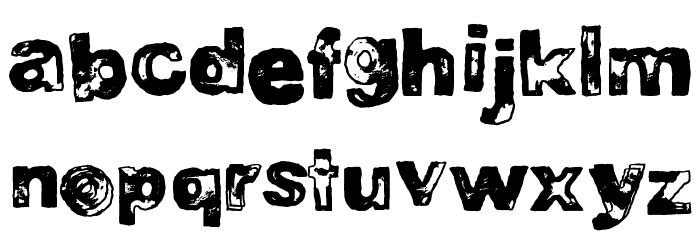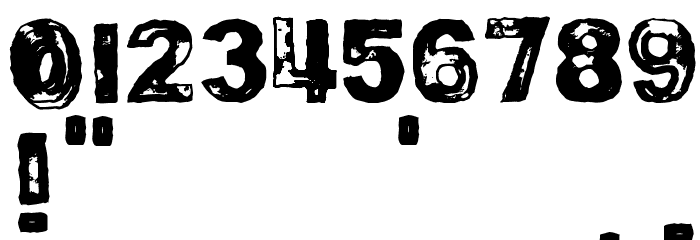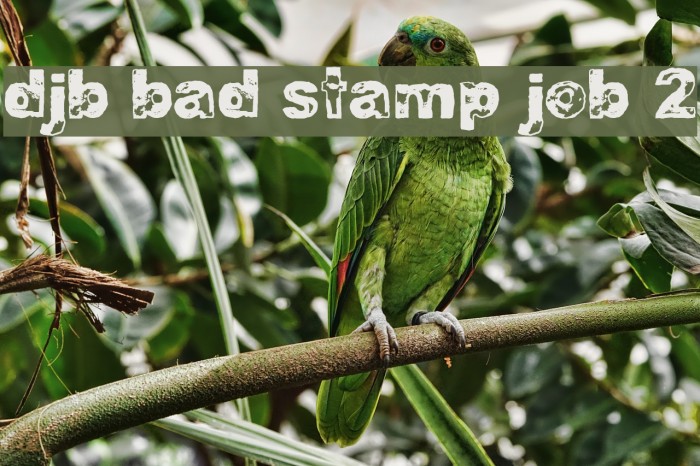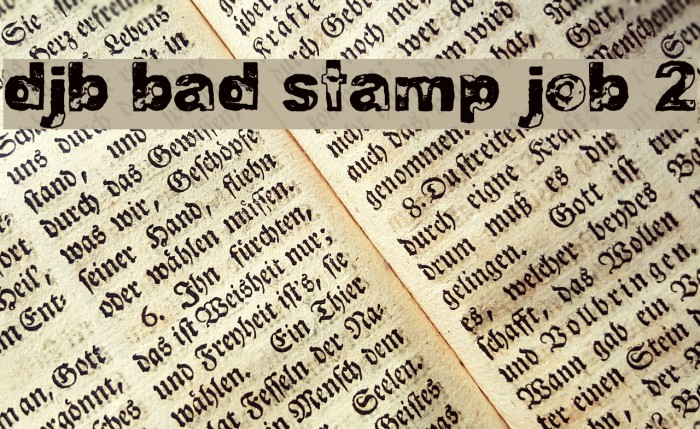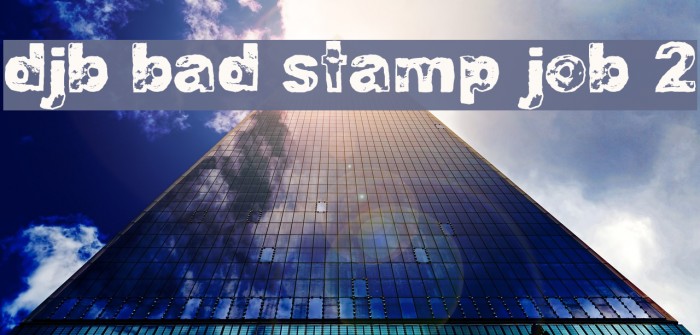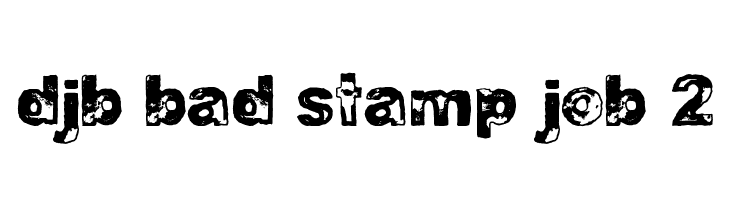
DJB BAD STAMP JOB 2 Font
This font features a distressed, grunge style that mimics the appearance of a stamp with uneven ink distribution. The characters are bold and have a rough texture, giving them a rugged and handmade feel. The edges are irregular, contributing to the overall chaotic and artistic vibe. This font is perfect for projects that require a raw, edgy look, such as posters, album covers, or any design that aims to convey a sense of rebellion or nonconformity. The letters are uppercase and lowercase, with numbers and a selection of punctuation marks, all maintaining the same distressed aesthetic.
A bold, distressed font with a grunge, stamp-like appearance.
- Proposed Projects: Ideal for posters, album covers, rebellious or edgy branding, and artistic designs.
- Overall Style: Grunge, Artistic, Edgy